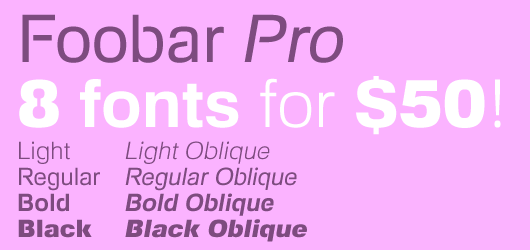
Foobar Pro Family
Foobar Pro Family by Roger S. Nelsson
8 fonts
This is the cool and stylish relative to Familiar Pro. Like a cousin. Or perhaps a second cousin twice removed. Because parts of the letters are removed, see...
Foobar Pro Family is a professionally reworked font that contains an extended character set for setting text in 65 languages requiring more than the basic A-Z!
Foobar Pro Light
Foobar Pro Light by Roger S. Nelsson
Foobar Pro Light Oblique
Foobar Pro Light Oblique by Roger S. Nelsson
Foobar Pro Regular
Foobar Pro Regular by Roger S. Nelsson
Foobar Pro Regular Oblique
Foobar Pro Regular Oblique by Roger S. Nelsson
Foobar Pro Bold
Foobar Pro Bold by Roger S. Nelsson
Foobar Pro Bold Oblique
Foobar Pro Bold Oblique by Roger S. Nelsson
Foobar Pro Black
Foobar Pro Black by Roger S. Nelsson
Foobar Pro Black Oblique
Foobar Pro Black Oblique by Roger S. Nelsson